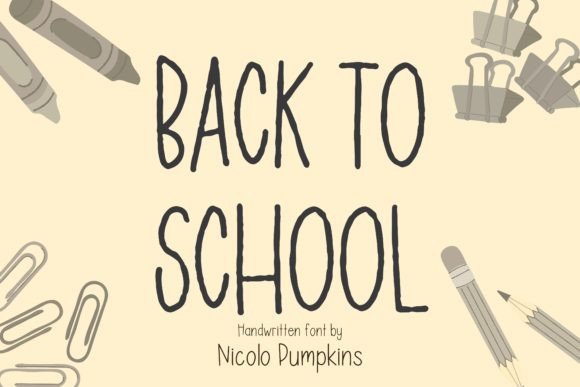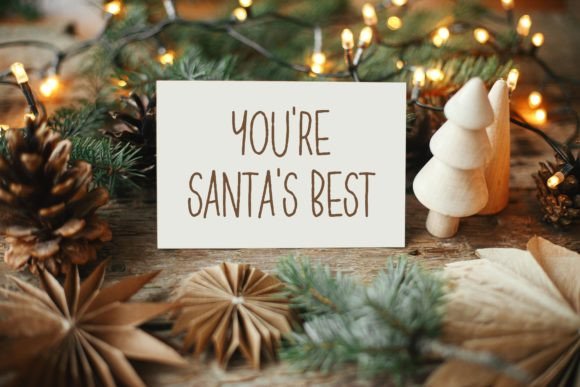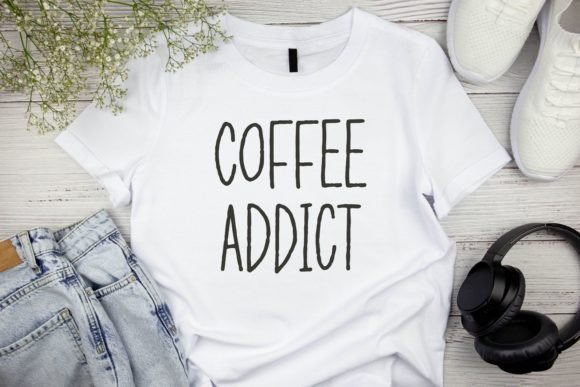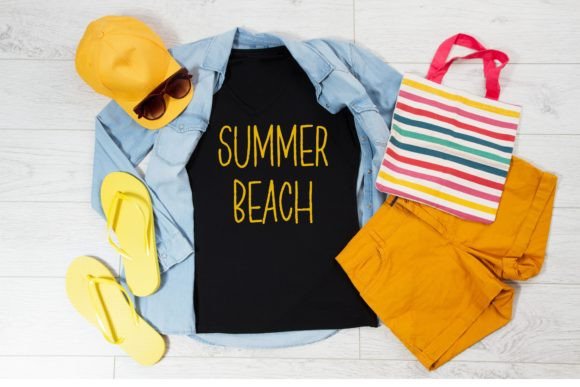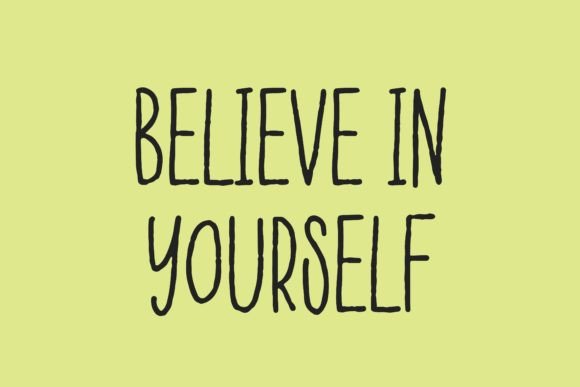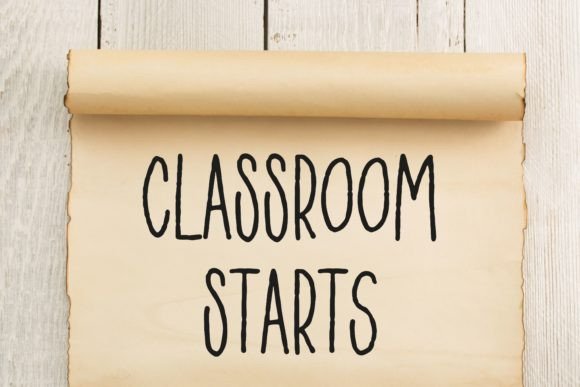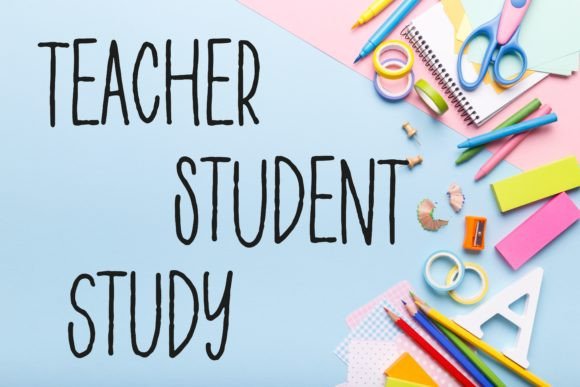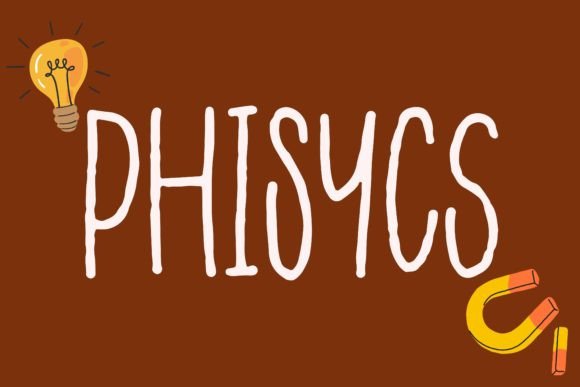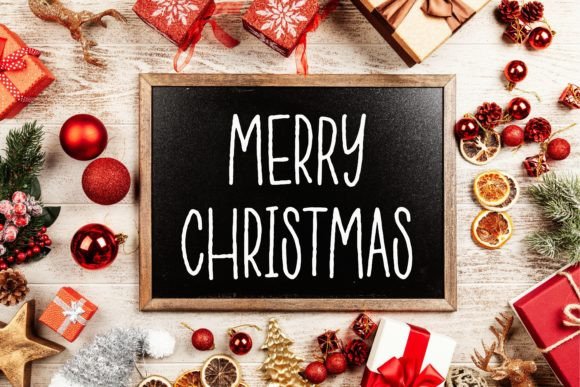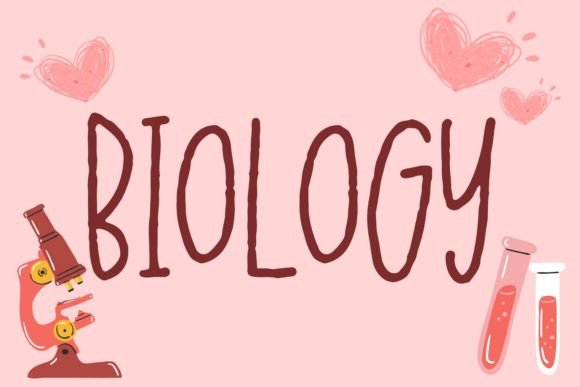
Back to School Font
About Back to School Font
“Back To School” is more than just a font; it’s a friendly handwritten typeface that brings a casual and approachable vibe to your creative projects. Perfectly tailored for back-to-school designs, it’s a font that resonates with teachers, students, and anyone seeking a relaxed and informal touch. “Back To School” is versatile, making it a great fit for various applications such as t-shirts, tote bags, hats, stickers, wedding designs, logos, cards, quotes, and more.
The friendly handwritten style of “Back To School” is designed to evoke a sense of ease and approachability. Its characters carry a warmth that makes it ideal for projects related to education, creating an inviting and friendly atmosphere. Whether you’re designing for school-related merchandise or crafting casual quotes, this font adds a personal touch.
The versatility of “Back To School” allows it to adapt seamlessly to different design contexts. It’s not confined to just school-related designs; it’s a font that can enhance a wide range of creative projects. From casual t-shirts to wedding designs, “Back To School” is a reliable choice for infusing a laid-back charm into your text.
The informal nature of “Back To School” makes it particularly well-suited for designs that require a touch of playfulness. Its handwritten appeal ensures that your designs feel authentic and relatable. Whether you’re creating logos or cards, this font adds a friendly and down-to-earth quality to your visual communication.
In summary, “Back To School” is not just a font; it’s a design element that brings a friendly and handwritten style to your creative projects. Embrace its casual vibe for back-to-school designs, t-shirts, wedding designs, and more. Let “Back To School” be the font that adds a touch of approachable charm to your designs, ensuring they resonate with a wide audience.